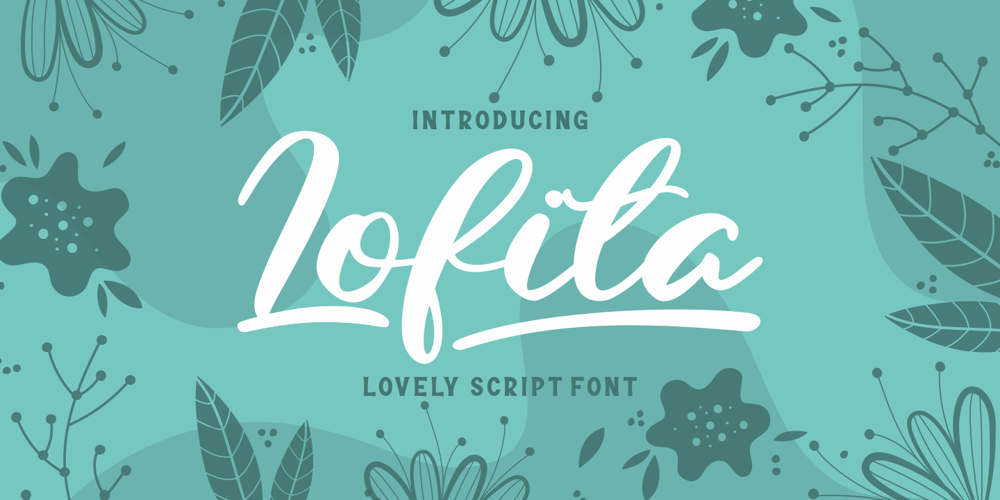
Lofita Font Family was designed by Riyadh Abuhafs and published by Awan Senja. Lofita contains 1 styles and family package options. Lofita is a beauty lovely font. It looks stunning on wedding invitations, thank you cards, quotes, greeting cards, logos, business cards and every other design which needs a handwritten touch. Add it to your most creative ideas and notice how it makes them come alive!